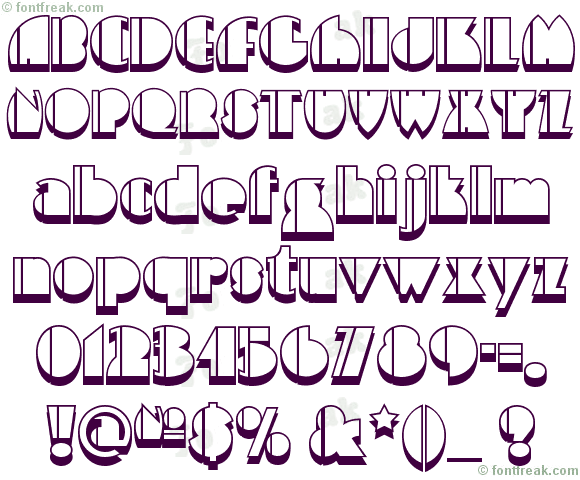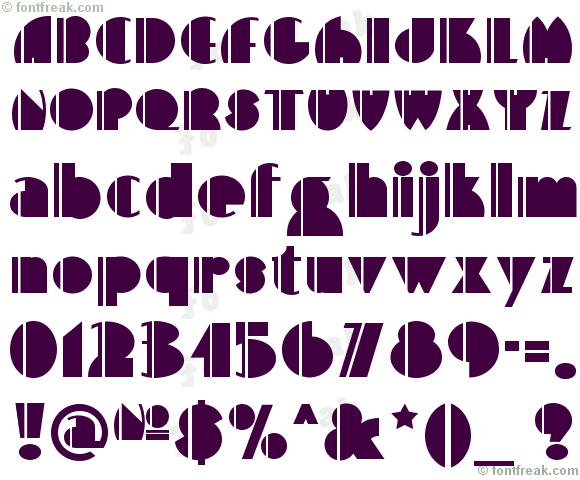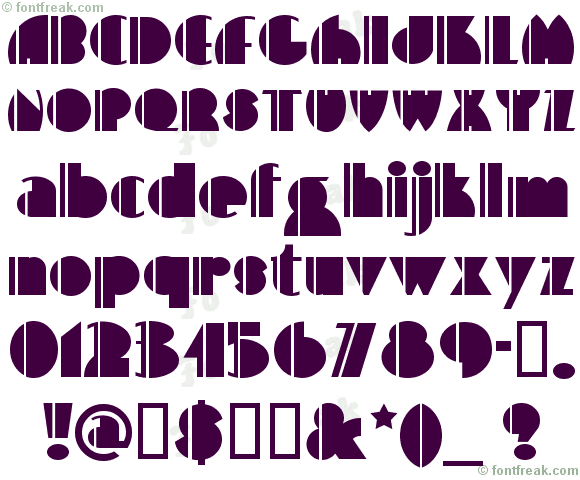
HighFive
High Five Jive NF
High Five NF
About HighFive
The HighFive font by Nick Curtis is a captivating display typeface that falls under the decorative category. Released in 2001 and later distributed in 2006, this unique font exudes a playful and energetic vibe, making it perfect for a variety of creative projects. HighFive features a bold stroke weight combined with a rounded, friendly appearance that enhances its legibility while still feeling inviting. The letters are well-spaced, ensuring clarity, which is essential for impactful design. The decorative elements, such as the quirky shapes and slight variations in line thickness, contribute to its distinctive charm.
This font is particularly well-suited for use in wedding invitations, where its cheerful demeanor can set a celebratory tone. Additionally, it works wonderfully on movie posters, capturing attention with its eye-catching design. Restaurant menus can also benefit from the HighFive font, adding a touch of whimsy to the overall aesthetic. Other ideal applications include promotional materials for events and children's products, where creativity and friendliness are paramount.
What truly sets the HighFive font apart is its ability to convey joy and enthusiasm through typography. Its unique style and friendly characteristics make it a standout choice for any designer seeking to bring a sense of fun and creativity to their work. Don't miss the opportunity to explore the HighFive font free download, and see how it can transform your next project.